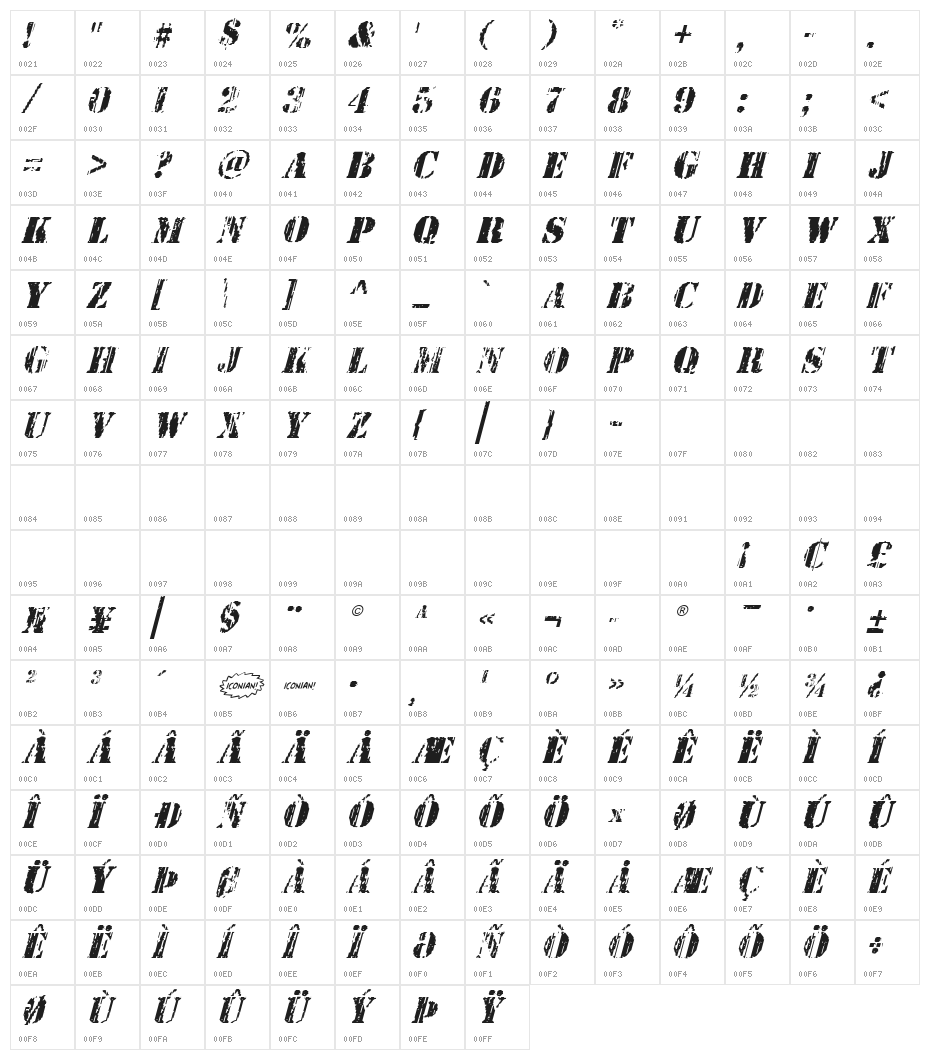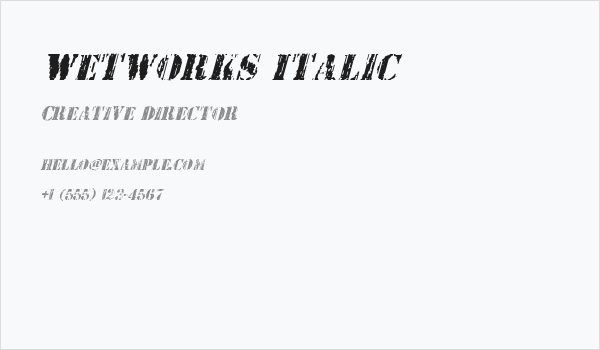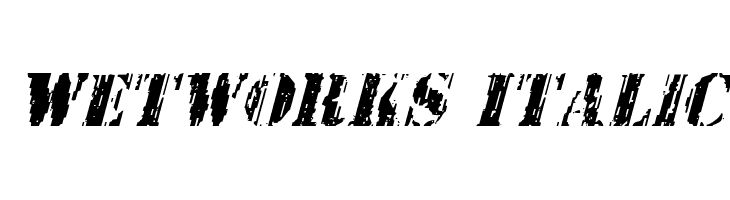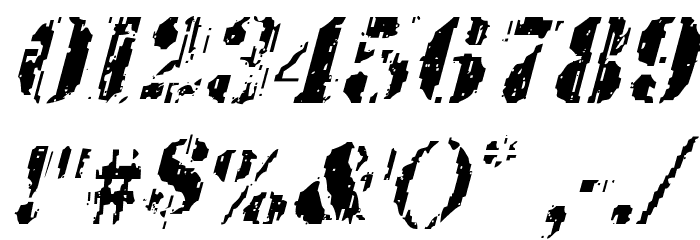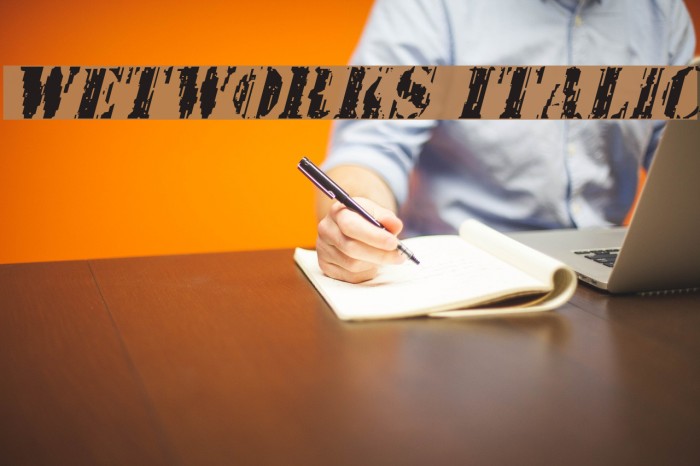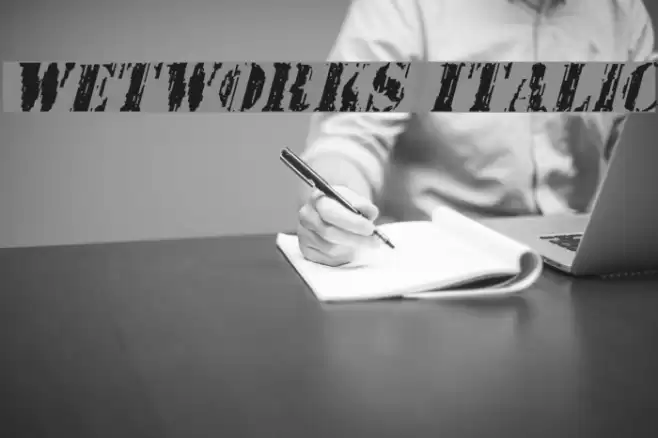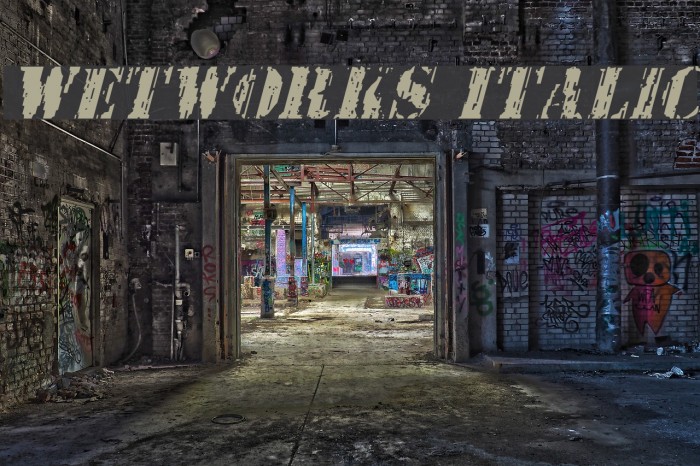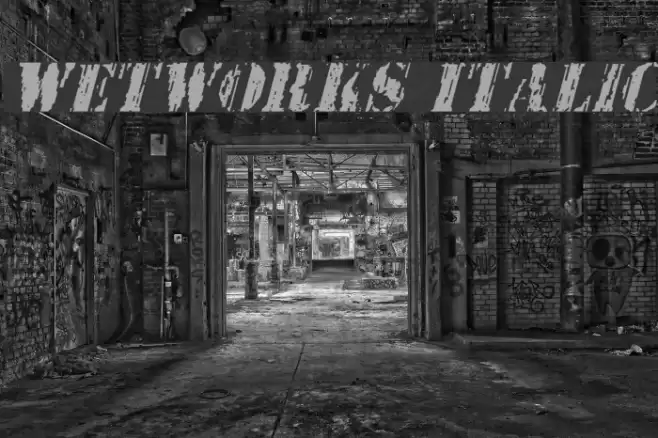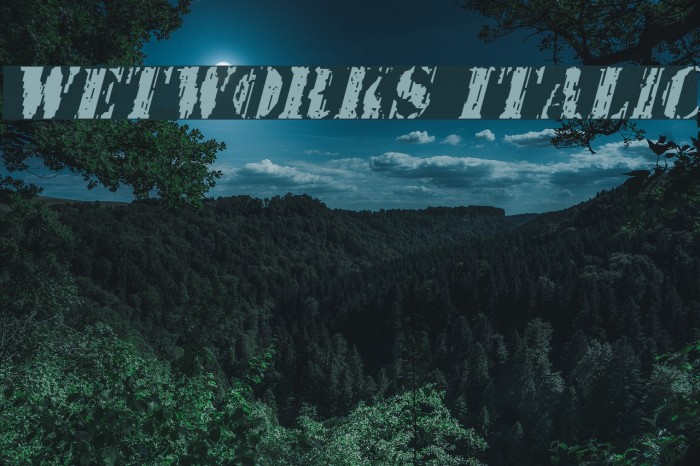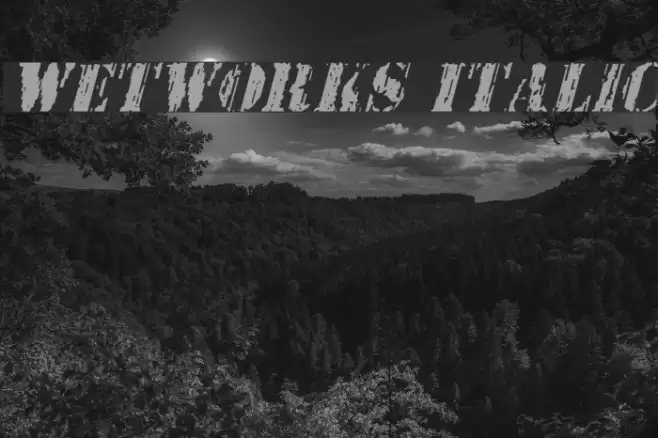
Wetworks Italic Font
Wetworks Italic Description
This font features a distressed, grunge style with an italic slant, giving it a rugged and edgy appearance. The characters are bold and heavily textured, resembling a weathered or eroded surface. This unique design creates a sense of movement and dynamism, making it stand out in any context. The uppercase and lowercase letters maintain a consistent style, with numbers and special characters following the same distressed pattern. The overall look is bold and impactful, suitable for projects that require a strong visual statement.
| Proposed Projects | Ideal for album covers, posters, streetwear branding, and edgy graphic design projects. |